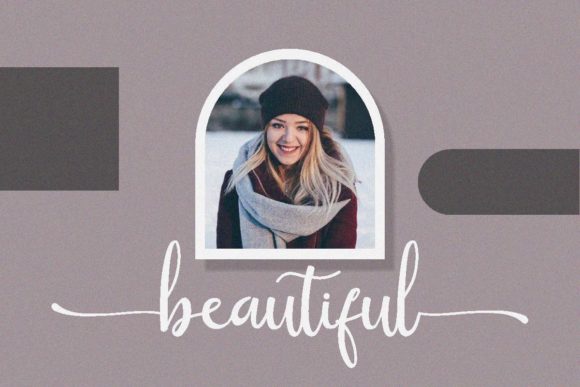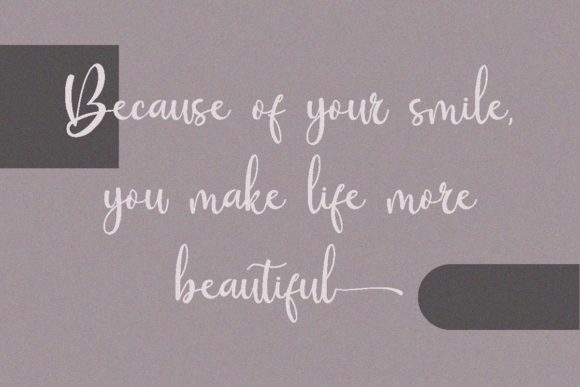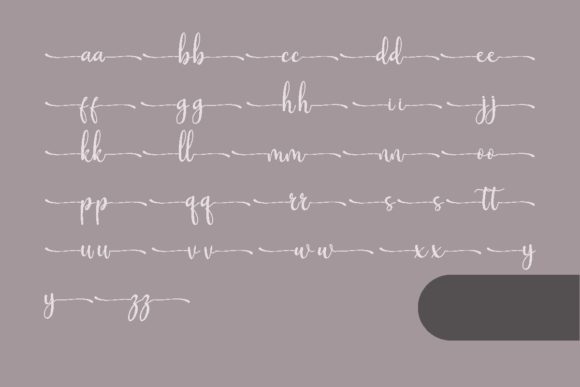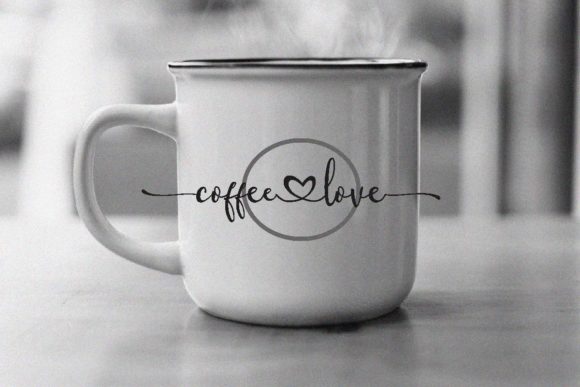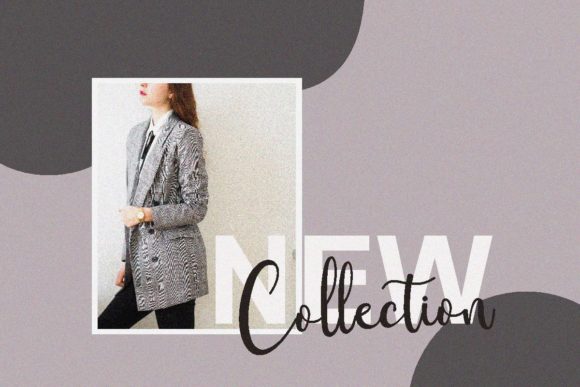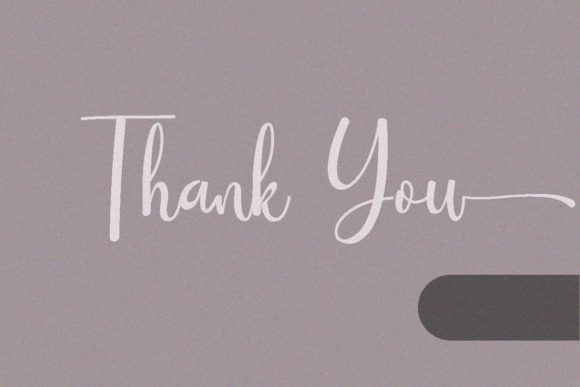
Introducing Betermine Font: Elevate Your Designs with Elegance and Sophistication
In the world of typography, a font can make or break a design. It’s the foundation upon which creativity is built, and the right choice can elevate a project from ordinary to extraordinary. If you’re a designer, crafter, or simply someone who appreciates the art of beautiful lettering, then you’re in luck. Meet Betermine Font, a distinct script font that’s about to become your new favorite asset.
A Masterfully Crafted Font
Betermine Font is a meticulously designed script font that exudes elegance and sophistication. Every detail, every curve, and every line has been carefully crafted to create a truly unique and stunning typeface. Whether you’re working on a logo, a branding project, or simply want to add a touch of personality to your digital creations, Betermine Font is the perfect choice.
What Makes Betermine Font Special?
So, what sets Betermine Font apart from other script fonts out there? Here are just a few features that make it a standout:
- Highly Detailed: Betermine Font is a highly detailed script font that’s perfect for designs that require a touch of sophistication.
- Wide Range of Applications: Whether you’re working on a logo, a brochure, or a digital project, Betermine Font is suitable for a wide range of applications.
How Betermine Font Can Enhance Your Creations
Betermine Font has the potential to enhance any creation, regardless of the topic or theme. Here are just a few ways it can elevate your designs:
- Adds Elegance and Sophistication: Betermine Font adds a touch of elegance and sophistication to any design, making it perfect for luxury brands, high-end products, or special occasions.
- Creates a Unique Identity: With its unique and distinctive style, Betermine Font can help create a unique identity for your brand or project.
- Versatile and Flexible: Betermine Font is incredibly versatile and flexible, making it suitable for a wide range of design applications.
Why Designers and Crafters Love Betermine Font
Betermine Font has quickly become a favorite among designers and crafters, and for good reason. Here are just a few reasons why:
- High-Quality Design: The font is meticulously designed, ensuring a high-quality finish that’s perfect for professional designs.
In conclusion, Betermine Font is a distinct script font that’s sure to become a valuable asset in your font library. With its highly detailed design, PUA encoding, and versatility, it’s the perfect choice for designers, crafters, and anyone looking to elevate their creations. Whether you’re working on a professional project or simply want to add a touch of personality to your digital creations, Betermine Font is an excellent choice.